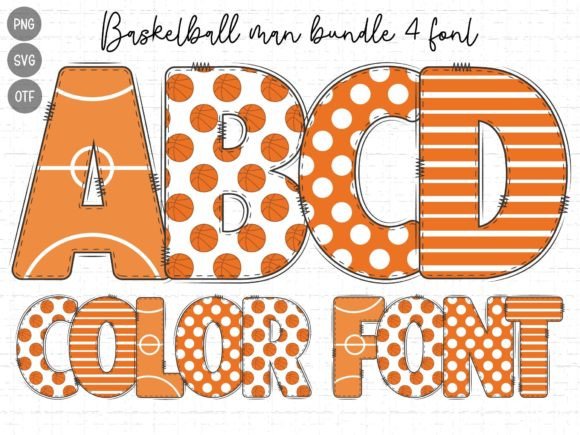
Prepare yourself to step onto the court of creativity with Basketball Man Font - the ultimate font collection for b-ball enthusiasts and typography lovers alike. Let the vibrant colors and energetic strokes of Basketball Man Font infuse your designs with an electrifying spirit, transporting you to the heart of the hardwood.
Crafted by the ingenious mind of Phongsakon Phonkhammak, Basketball Man Font is a symphony of colors and shapes, designed to capture the essence of basketball's dynamic energy. Its bold and playful characters will ignite your imagination, propelling your designs to new heights of originality and flair.
Whether you're creating posters that pulse with the energy of the game, designing apparel that reflects your unwavering passion for hoops, or crafting digital content that oozes with basketball fever, Basketball Man Font is your ultimate weapon. Let the vibrant hues and striking lines of this font family elevate your designs to superstar status, making them the envy of the creative court.
Unleash the power of Basketball Man Font and watch your designs transform into captivating masterpieces.